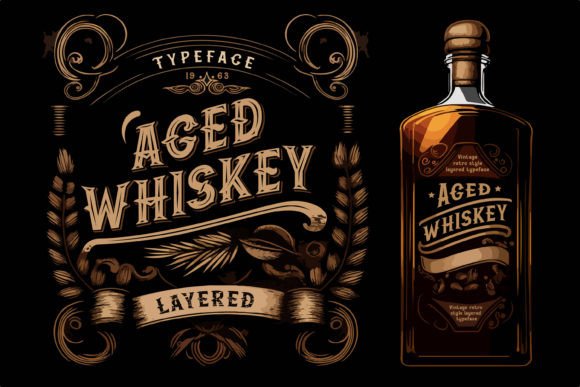
Aged Whiskey Font: A Vintage Typeface for Your Brand
The Aged Whiskey font is a unique and stylish typeface that embodies the essence of a bygone era. With its old vintage style, this font is perfect for creating labels, headings, logos, and illustrations that exude a sense of sophistication and elegance. In this article, we’ll explore the features and benefits of the Aged Whiskey font, and how it can elevate your brand’s visual identity.
Key Features of the Aged Whiskey Font
• Unique Vintage Style: The Aged Whiskey font boasts a distinctive old-world charm, reminiscent of classic whiskey labels and vintage advertisements.
• Highly Versatile: This font is suitable for a wide range of applications, including labels, headings, logos, and illustrations.
• Easy to Read: Despite its vintage aesthetic, the Aged Whiskey font remains highly legible, making it perfect for use in various contexts.
Creative Uses for the Aged Whiskey Font
The Aged Whiskey font is incredibly versatile, and its uses are limited only by your imagination. Here are some ideas to get you started:
• Labels and Packaging: Use the Aged Whiskey font to create eye-catching labels and packaging for your products, such as whiskey bottles, craft beer, or gourmet food items.
• Headings and Titles: Add a touch of vintage elegance to your website, blog, or social media graphics with the Aged Whiskey font.
• Logos and Branding: Create a unique and memorable logo for your business using the Aged Whiskey font, perfect for companies that want to convey a sense of tradition and heritage.
• Illustrations and Graphics: Use the Aged Whiskey font to create stunning illustrations and graphics for your website, advertising campaigns, or merchandise.
Bonus Illustrations for T-Shirts
• T-Shirt Designs: Use the illustrations to create unique and eye-catching T-shirt designs that will appeal to anyone who loves whiskey, vintage style, or classic typography.
• Merchandise: Apply the illustrations to other merchandise, such as tote bags, mugs, or phone cases, to create one-of-a-kind products.
• Social Media Graphics: Use the illustrations as a starting point for creating engaging social media graphics, such as Facebook posts, Instagram stories, or Twitter headers.
Tips and Tricks for Using the Aged Whiskey Font
To get the most out of the Aged Whiskey font, here are some tips and tricks to keep in mind:
• Experiment with Colors: The Aged Whiskey font looks great in a range of colors, from earthy tones to metallic shades. Experiment with different colors to find the perfect combination for your brand.
• Mix and Match: Combine the Aged Whiskey font with other fonts or graphics to create a unique and visually appealing design.
• Pay Attention to Legibility: While the Aged Whiskey font is highly legible, it’s still important to ensure that your text is clear and easy to read, especially at smaller sizes.
The Aged Whiskey font is a versatile and stylish typeface that’s perfect for creating labels, headings, logos, and illustrations with a vintage flair. With its unique character and highly legible design, this font is sure to elevate your brand’s visual identity. Plus, with the bonus illustrations for T-shirts, you’ll have everything you need to create stunning merchandise and graphics.